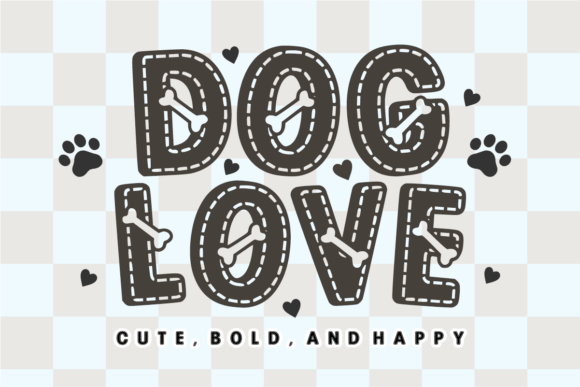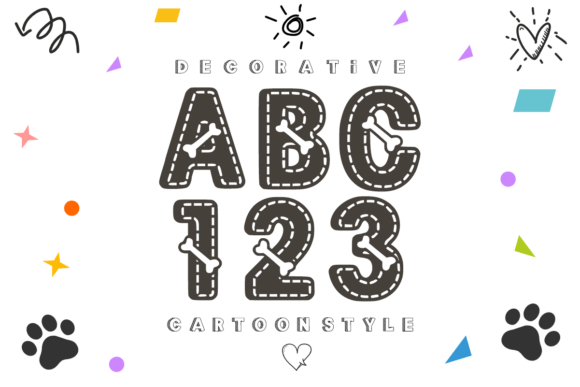
🐾 Dog Bone Font – The Ultimate Playful & Pawsome Kids Display Font 🐾
Are you looking for a font that adds a touch of playfulness and warmth to your designs? Look no further than the Dog Bone font! This delightful font is perfect for designers, crafters, and pet lovers who want to create fun and engaging designs for kids and pet owners. In this article, we’ll dive into the features and benefits of the Dog Bone font and explore how you can use it to take your designs to the next level.
What is Dog Bone Font?
Dog Bone is a playful and charming display font that features chunky cartoon letters with a stitched border and a cute bone icon inside every character. Inspired by the “ultimate cartoon spirit,” this font is designed to bring a sense of fun and playfulness to your designs. The Dog Bone font is perfect for creating logos, branding materials, and designs for pet lovers, kids, and families.
Key Features of Dog Bone Font
- Chunky Cartoon Letters: The Dog Bone font features thick, chunky letters that are perfect for creating bold and eye-catching designs.
- Stitched Border: Each letter has a charming stitched border that adds a touch of texture and visual interest to your designs.
- Cute Bone Icon: Every character in the Dog Bone font features a cute bone icon inside, making it perfect for pet lovers and designs related to dogs.
- Playful and Whimsical: The Dog Bone font has a playful and whimsical feel that’s perfect for creating fun and engaging designs for kids and families.
Use Cases for Dog Bone Font
The Dog Bone font is versatile and can be used for a variety of design projects, including:
- Pet Grooming Logos: Create a fun and playful logo for your pet grooming business with the Dog Bone font.
- Kids’ Apparel: Design fun and colorful apparel for kids with the Dog Bone font, featuring cute bone icons and playful lettering.
- Children’s Books: Add a touch of whimsy and playfulness to your children’s book with the Dog Bone font.
- Pet-Themed Designs: Create pet-themed designs, such as pet accessories, pet posters, and pet social media graphics, with the Dog Bone font.
Benefits of Using Dog Bone Font
Using the Dog Bone font in your designs offers several benefits, including:
- Instant Recognition: The Dog Bone font is instantly recognizable as a playful and fun font, making it perfect for designs that need to stand out.
: The cute bone icon and playful lettering in the Dog Bone font create an emotional connection with pet lovers and kids, making your designs more relatable and engaging. - Versatility: The Dog Bone font is versatile and can be used for a variety of design projects, from logos to social media graphics.
Tips for Using Dog Bone Font
Here are some tips for using the Dog Bone font in your designs:
- Pair with Other Fonts: Pair the Dog Bone font with other fonts to create visual interest and add depth to your designs.
- Experiment with Colors: Experiment with different colors and textures to add visual interest to your designs.
- Keep it Simple: Keep your designs simple and focused on the message you want to convey.
In conclusion, the Dog Bone font is a playful and charming display font that’s perfect for designers, crafters, and pet lovers who want to create fun and engaging designs for kids and pet owners. With its chunky cartoon letters, stitched border, and cute bone icon, the Dog Bone font adds an instant touch of warmth, playfulness, and puppy love to any design. So why not give your designs a “treat” with the Dog Bone font? 🐾